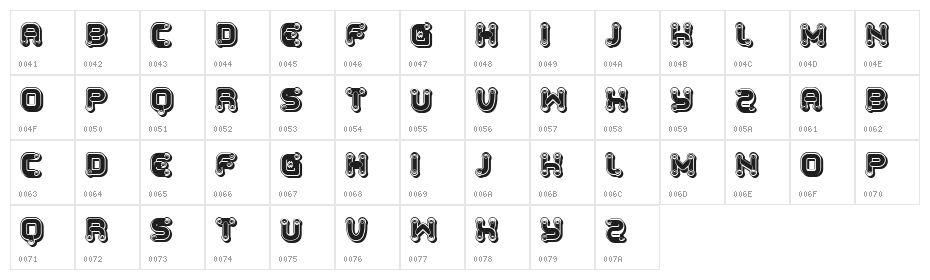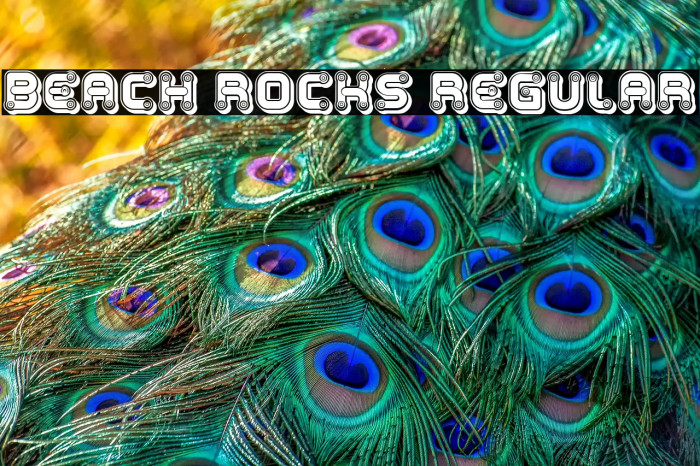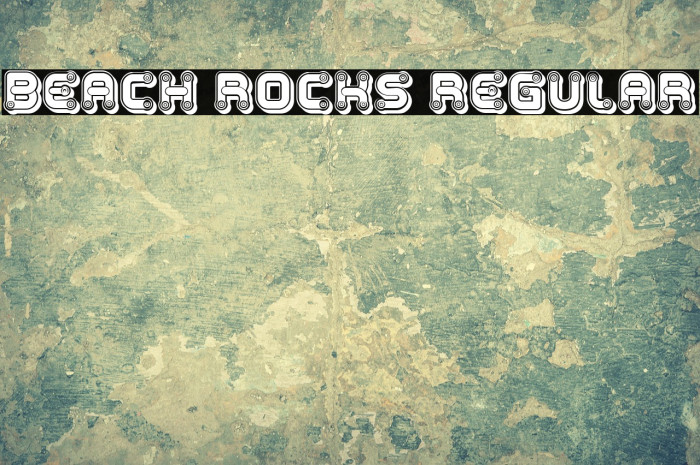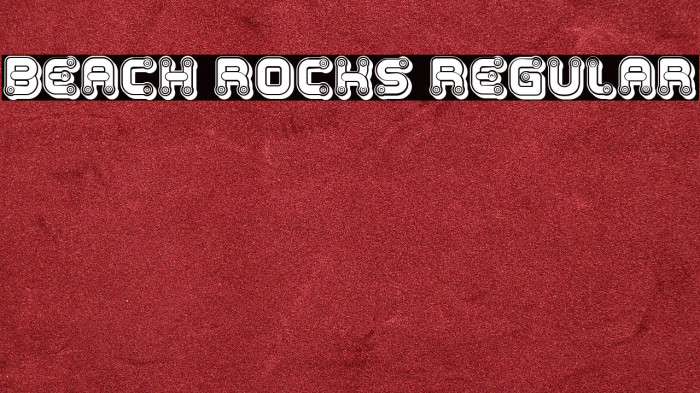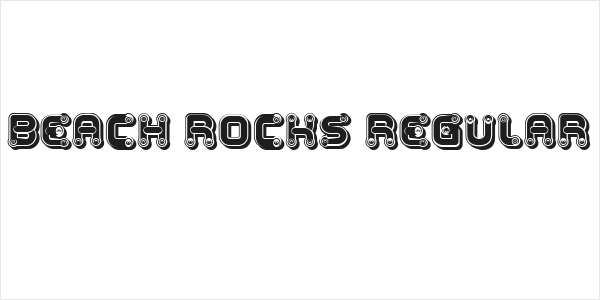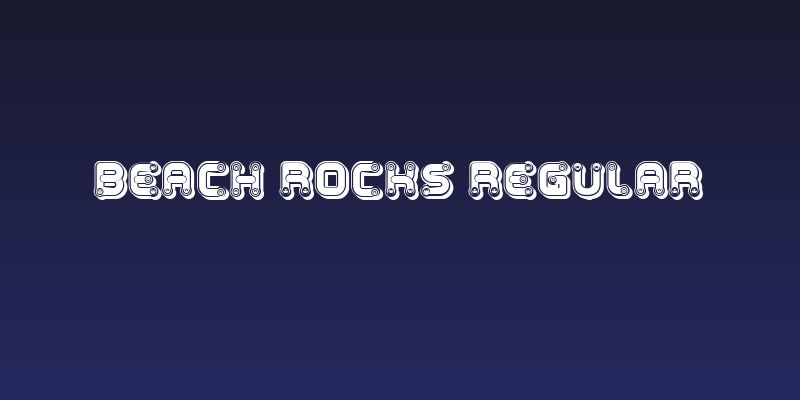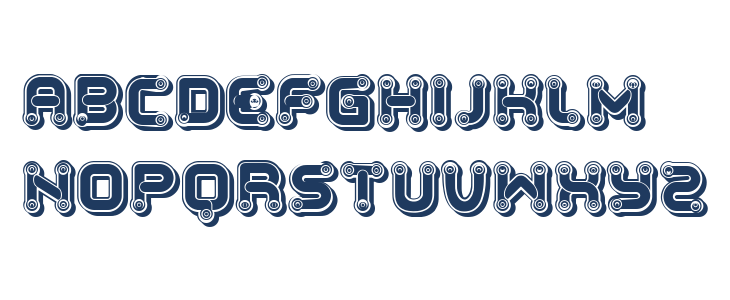
Beach Rocks Regular Font
Beach Rocks Regular Description
This font features a bold and playful design with a unique, decorative style. Each character is outlined with a thick, black border and filled with a white interior, creating a striking contrast. The letters are adorned with circular embellishments at the ends of the strokes, giving them a whimsical and fun appearance. The overall look is reminiscent of retro or vintage styles, yet with a modern twist. This font is highly decorative and eye-catching, making it suitable for creative and artistic projects.
Proposed ProjectsIdeal for posters, logos, branding, and any project that requires a playful and eye-catching typeface.